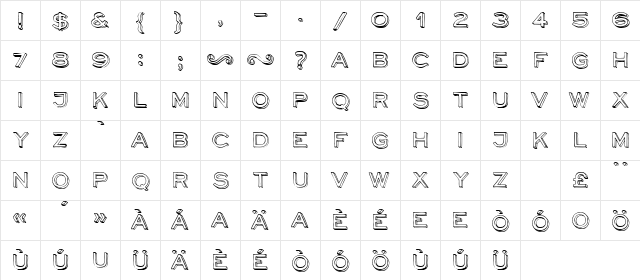
NeoRetroDraw Regular
Design Context for NeoRetroDraw Typeface
NeoRetroDraw has the warm character of retro typography — evoking diners, record sleeves, and the golden age of print advertising.
Perfect for vintage-inspired branding, retro packaging, nostalgia campaigns, and period-accurate editorial design.
Font Pairing: Combine NeoRetroDraw with a simple slab or neutral sans — period-accurate companions reinforce the vintage feel without competing for attention.
Pro Tip: Use NeoRetroDraw for headlines and pull quotes rather than body copy — its personality is best appreciated in short, focused bursts.